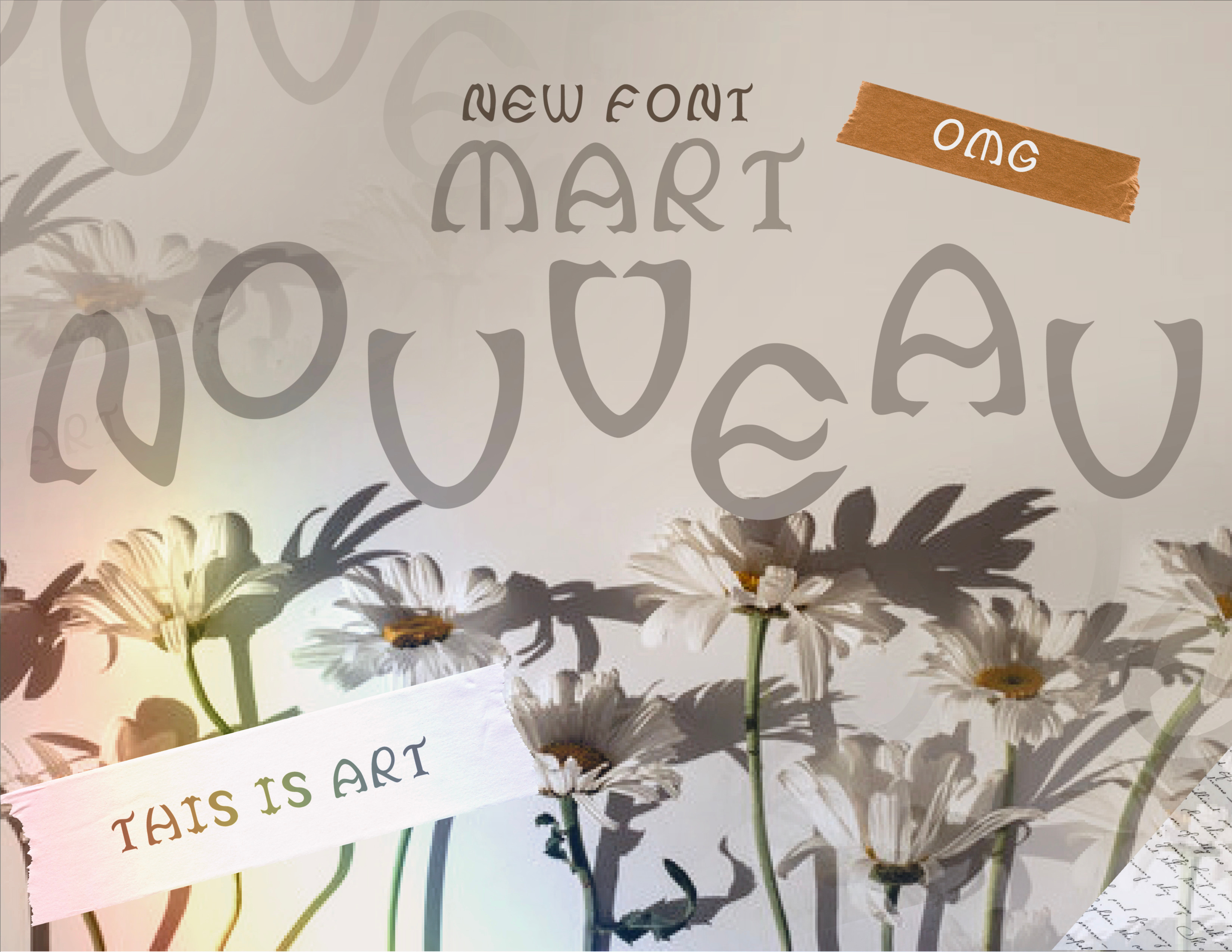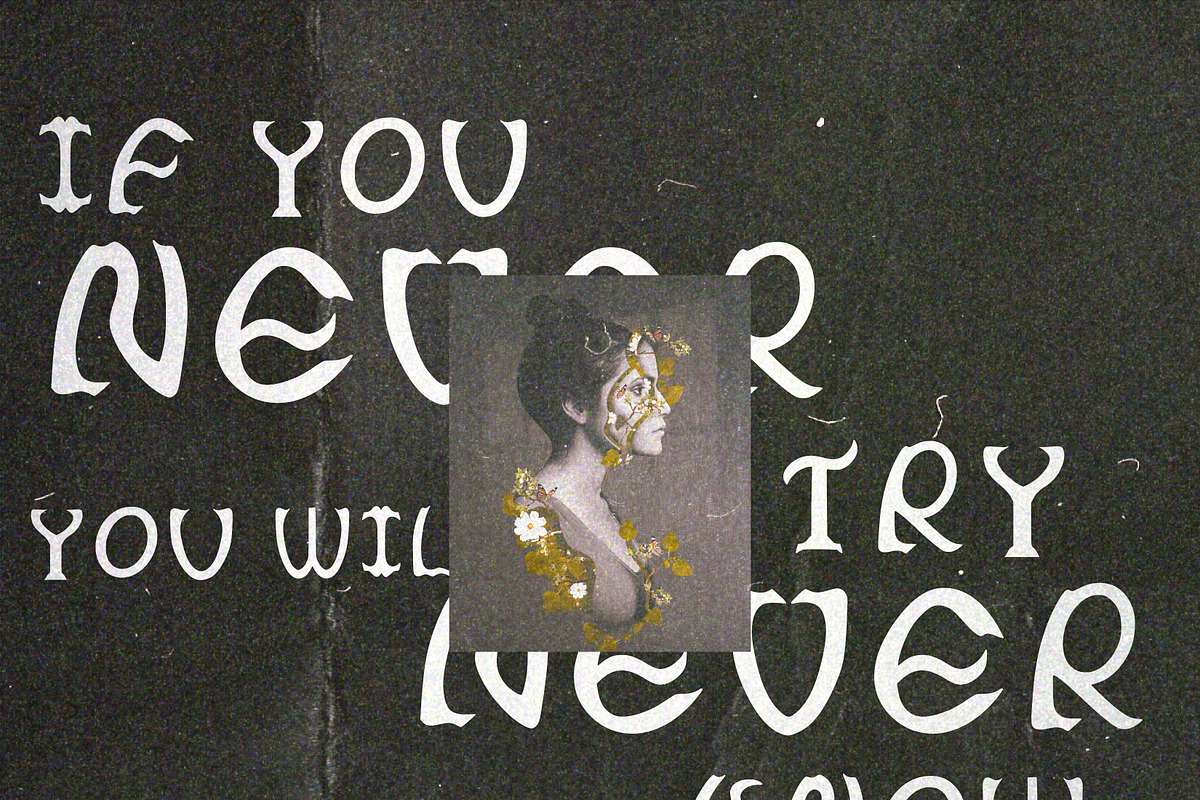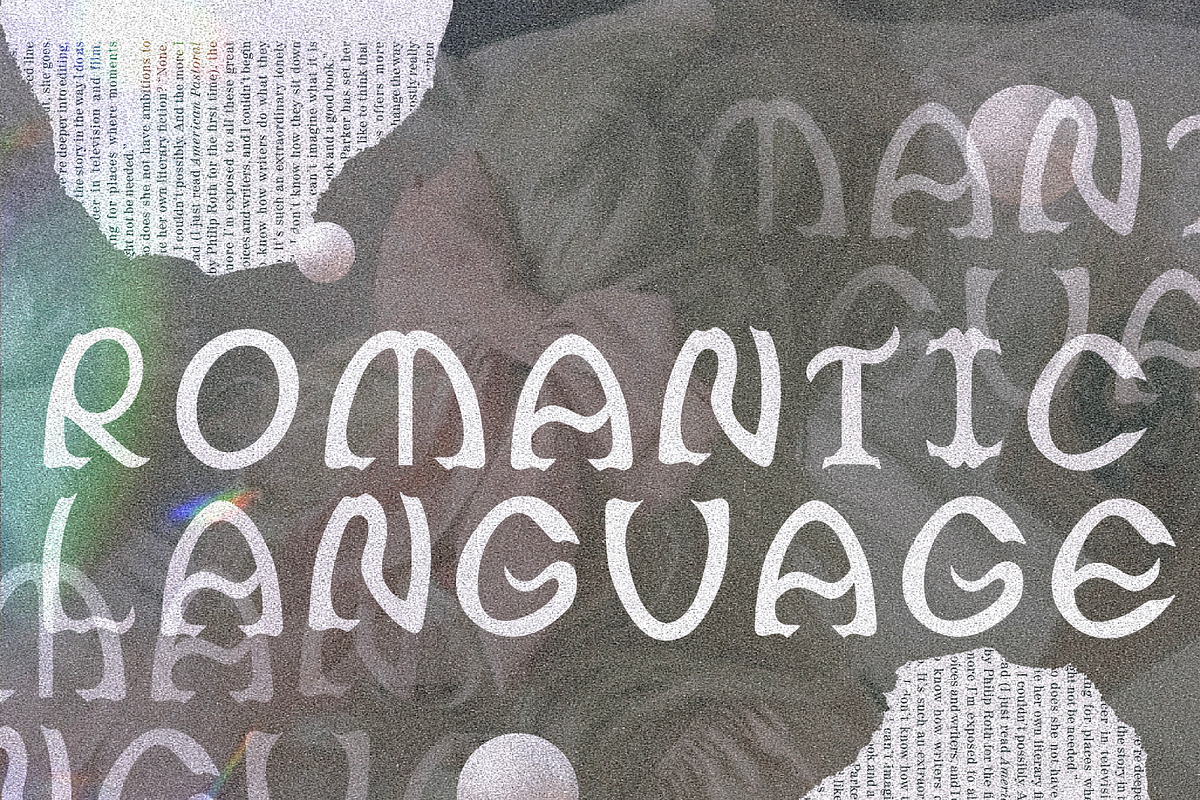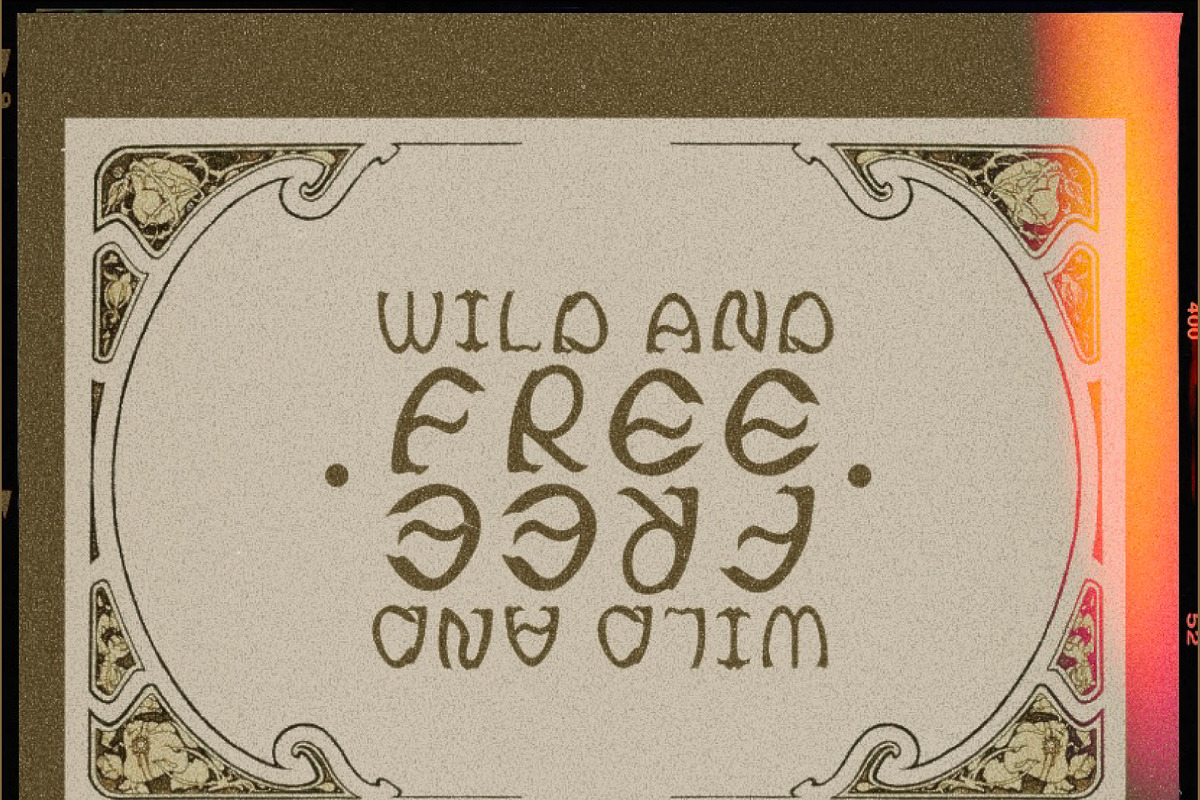
Say hello to Martnouveau Font
Martnouveau is a romantic and modern font. It was created to bring sophistication and mystery to the designs or your way of speaking visually. Inspired by art nouveau or modernism, nature - this font is characterized by its curved lines and feminine, you can use it for exotic reasons.
Design Tips: Adjust your letterspacing to add more groove!